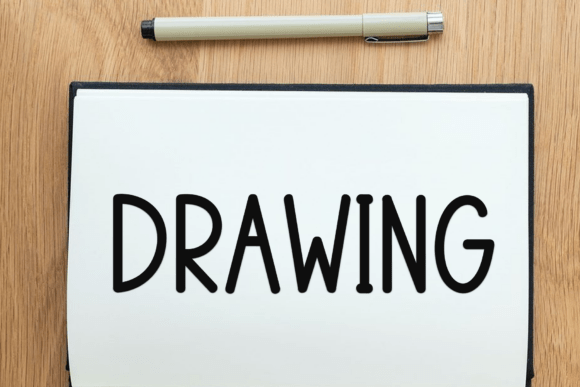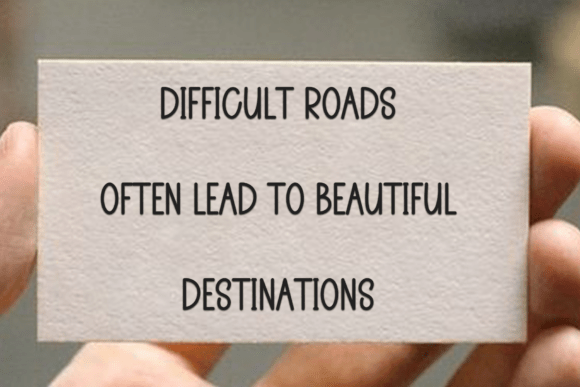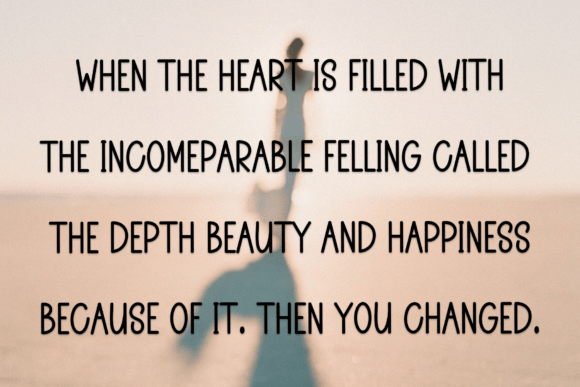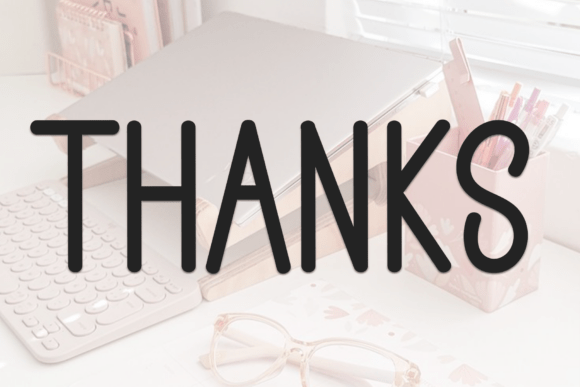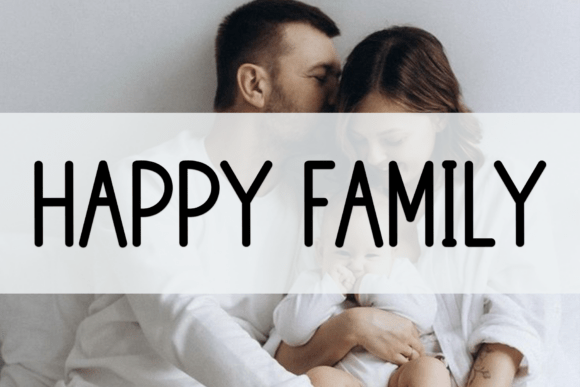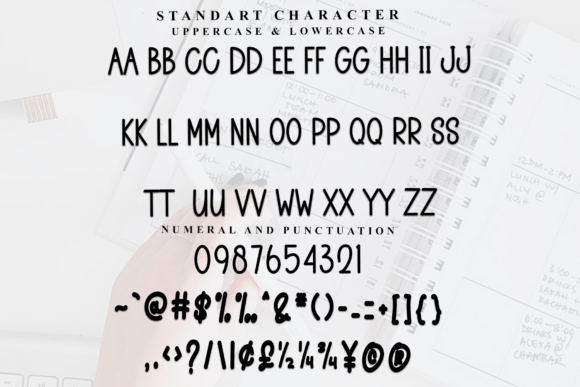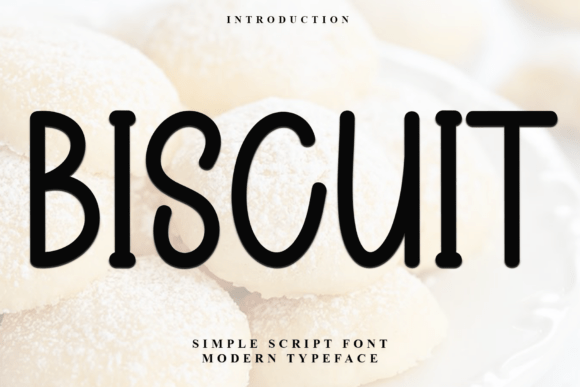
Biscuit Font: A Festive and Merry Typeface for the Holiday Season
The holiday season is upon us, and what better way to get into the spirit than with a font that’s as festive and merry as Biscuit Font? This decorative typeface is designed to capture the magic of the holiday season, with its whimsical flair and enchanting elements. Whether you’re a designer, crafter, or simply someone who loves the holidays, Biscuit Font is the perfect addition to your typography collection.
A Font that’s Full of Holiday Cheer
Biscuit Font is a beautifully crafted typeface that’s perfect for adding a touch of holiday cheer to your designs. With its decorative elements and whimsical flair, it’s sure to bring a smile to anyone’s face. This font is ideal for use in greeting cards, gift tags, and holiday-themed projects, where you want to add a personal touch that’s both festive and fun.
One of the best things about Biscuit Font is that it’s PUA (Private Use Area) encoded, which means you can access all of the amazing glyphs and ligatures with ease. This makes it simple to add special characters and flourishes to your text, giving your designs an extra touch of personality and style. Whether you’re a seasoned designer or just starting out, PUA encoding makes it easy to get the most out of this beautiful font.
Biscuit Font is a versatile typeface that’s perfect for designers and crafters alike. Whether you’re creating holiday-themed graphics, crafting personalized gifts, or simply want to add a touch of festive flair to your social media posts, this font has got you covered. Its decorative elements and whimsical flair make it ideal for use in a wide range of projects, from:
- Gift tags and wrapping paper
- Holiday-themed graphics and social media posts
- Personalized gifts and crafts
Bringing a Cheerful and Nostalgic Ambiance to Your Words
There’s something special about the holiday season that brings out the nostalgia in all of us. Biscuit Font is designed to capture that feeling, with its cheerful and whimsical design. When you use this font in your projects, you’re sure to evoke a sense of wonder and enchantment in your audience. Whether you’re creating designs for personal use or for clients, Biscuit Font is the perfect way to add a touch of holiday magic to your words.
Let Your Typography Shine
With Biscuit Font, you can let your typography shine like never before. This beautiful typeface is designed to add a touch of elegance and sophistication to your designs, while its decorative elements and whimsical flair bring a playful and festive touch. Whether you’re a seasoned designer or just starting out, Biscuit Font is the perfect way to take your typography to the next level.
Get Ready to Make Your Designs Merry and Bright
In conclusion, Biscuit Font is a festive and merry typeface that’s perfect for the holiday season. With its decorative elements and whimsical flair, it’s sure to add a touch of enchantment to your designs. Whether you’re a designer, crafter, or simply someone who loves the holidays, this font is a must-have for anyone looking to add a little holiday cheer to their typography. So why wait? Get your hands on Biscuit Font today and start creating designs that are sure to bring joy and cheer to all who see them!